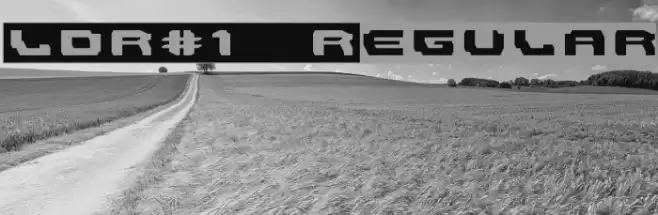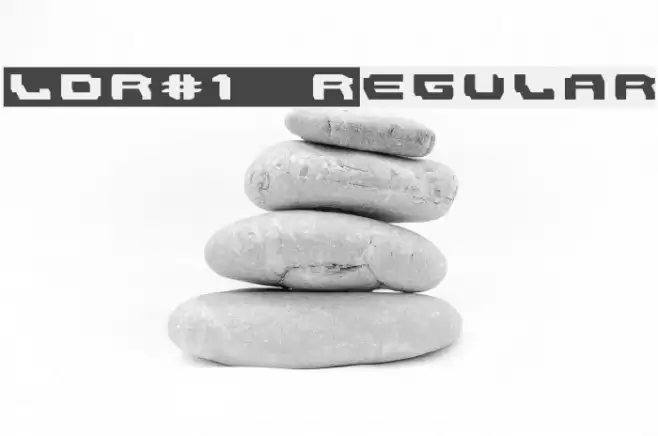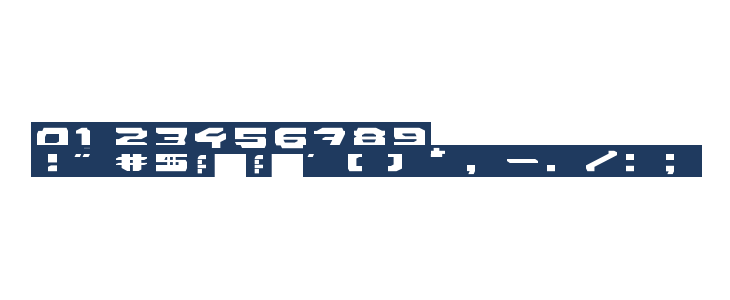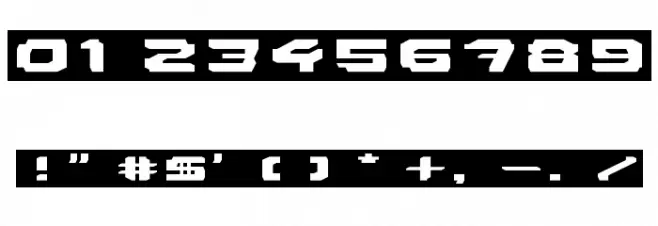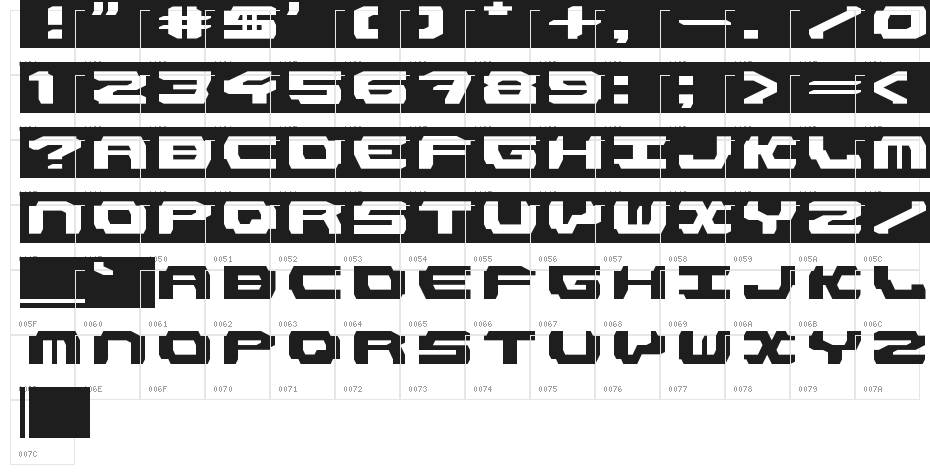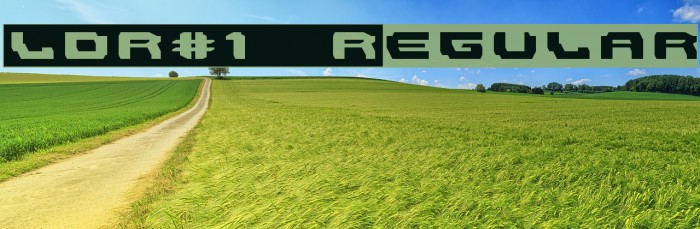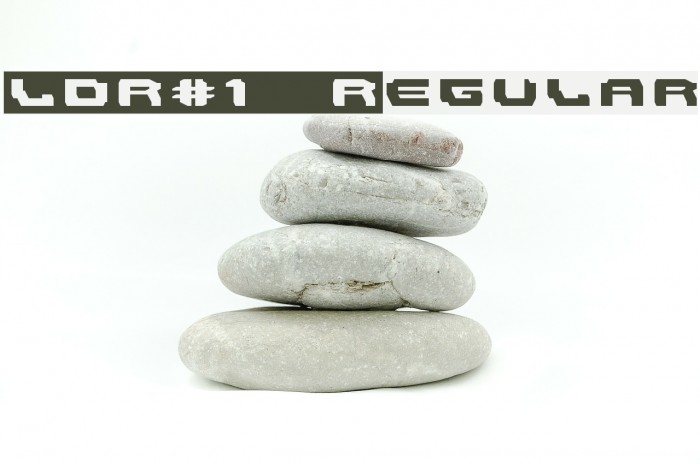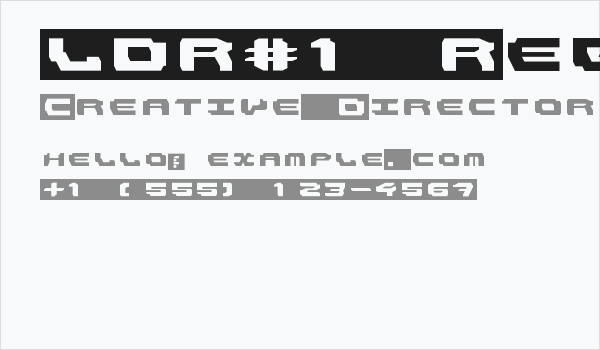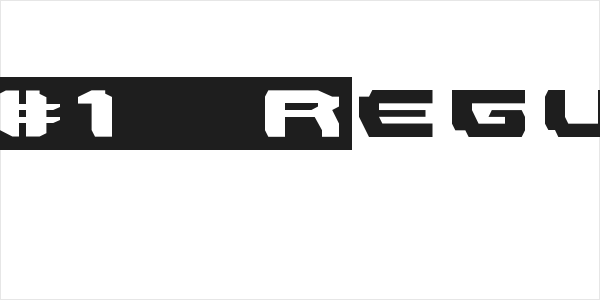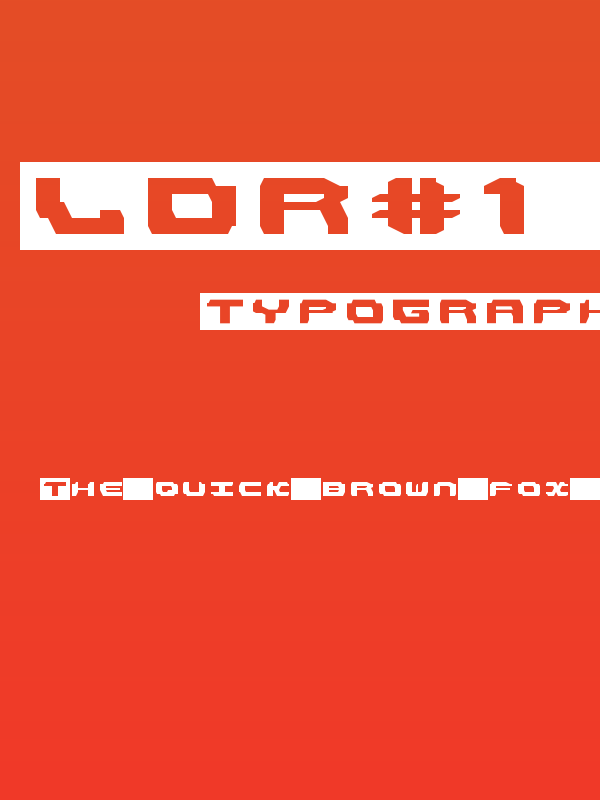
LDR#1 Regular Font
This font features a bold, geometric design with a futuristic and digital aesthetic. The characters are constructed with sharp angles and straight lines, giving them a blocky and robust appearance. The uppercase and lowercase letters maintain a consistent style, with uniform stroke widths that contribute to a cohesive look. The numerals and special characters are designed to match the angular theme, ensuring visual harmony across all elements. This font's distinct style makes it ideal for projects that require a modern and tech-savvy feel.
- Proposed Projects: Ideal for technology branding, video game titles, sci-fi posters, and digital interfaces.